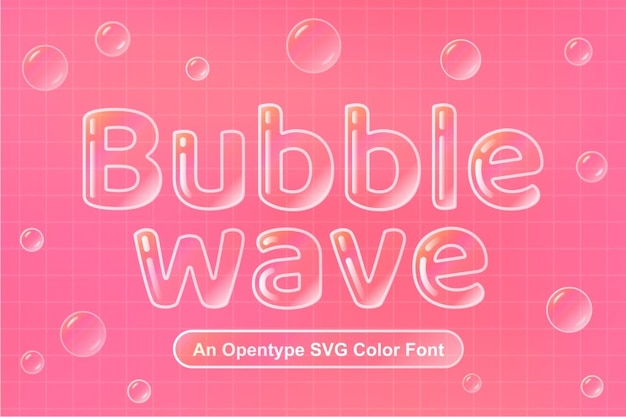
Bubblewave Font
Dive into creativity with Bubblewave! This font is like a burst of joy on your screen, with its bubbly and rounded design. Whether you're crafting invitations, posters, or anything that needs a touch of whimsy, Bubblewave's decorative charm adds a playful twist to your message. Let your words float on a sea of fun with this delightful typeface. Make a splash with Bubblewave and watch your designs come to life!